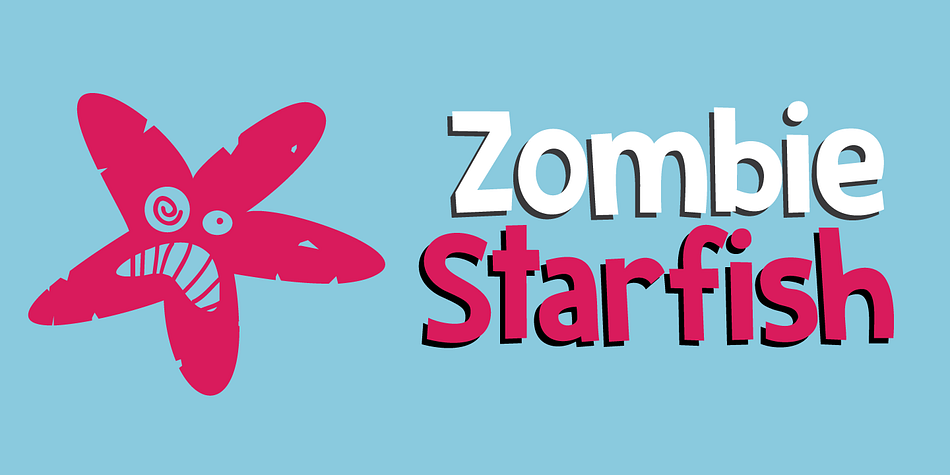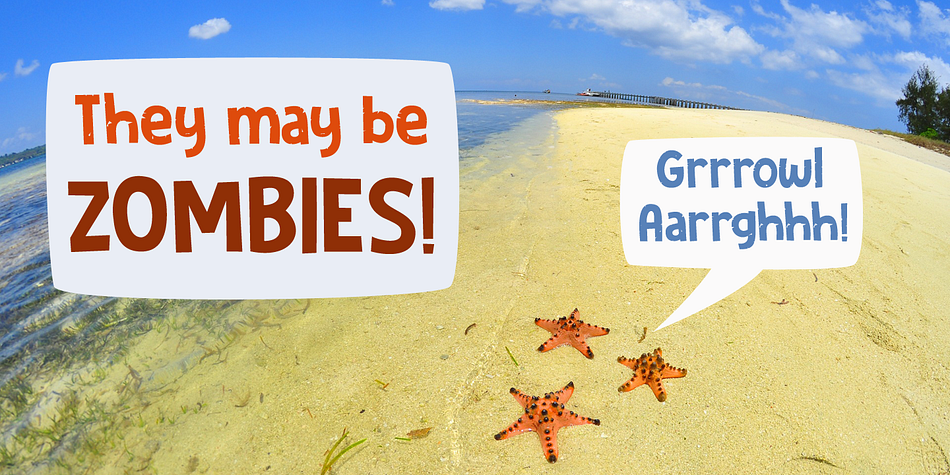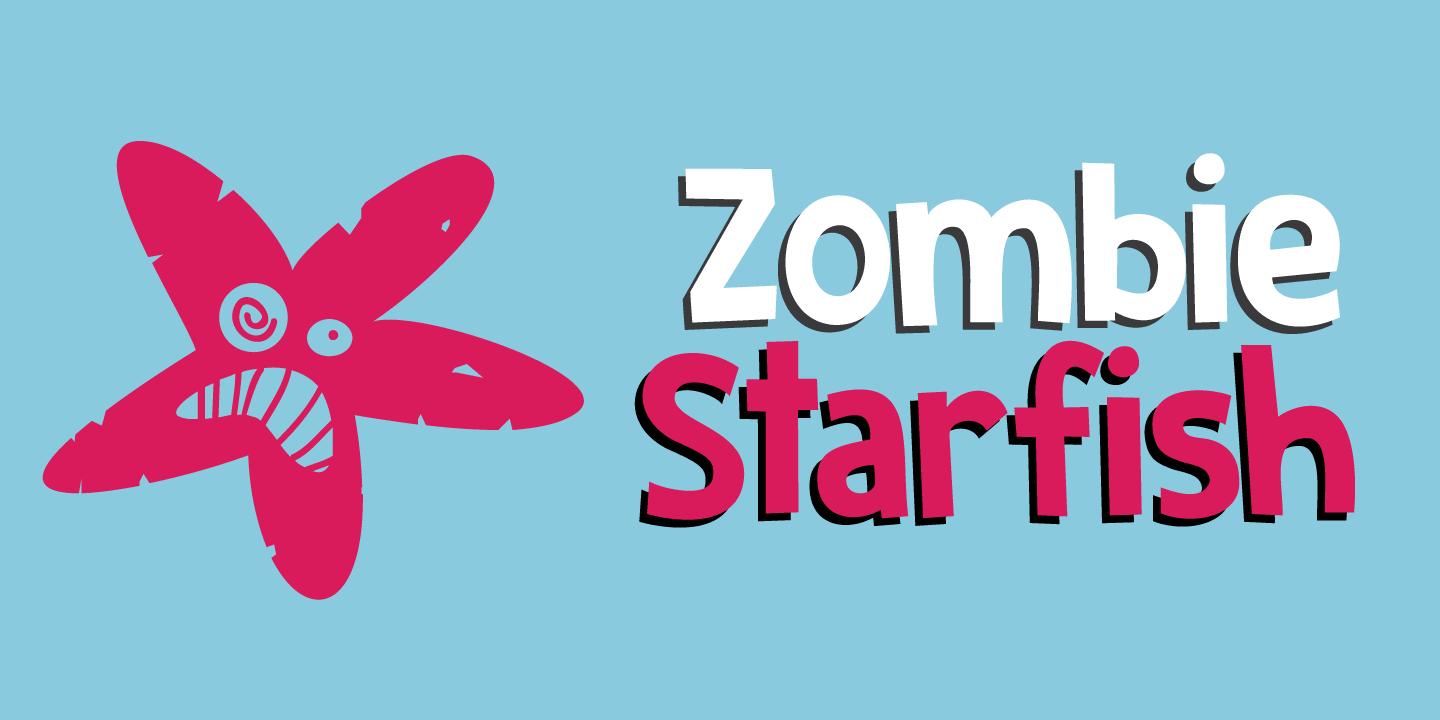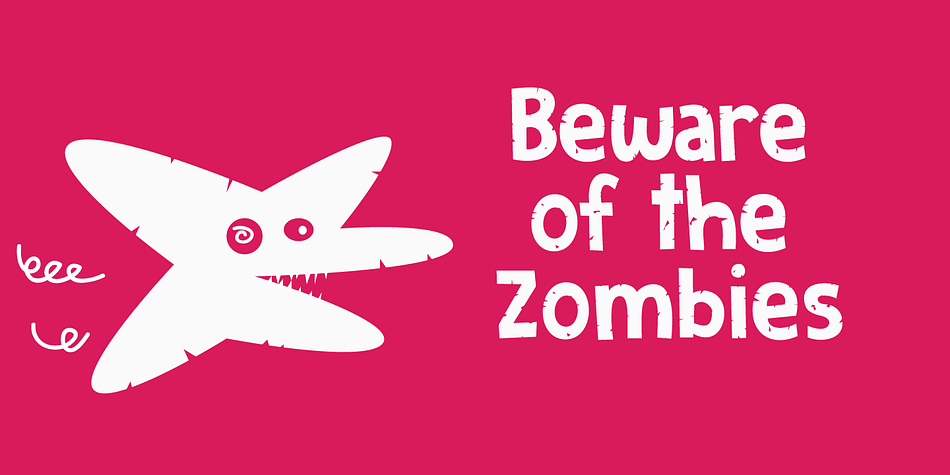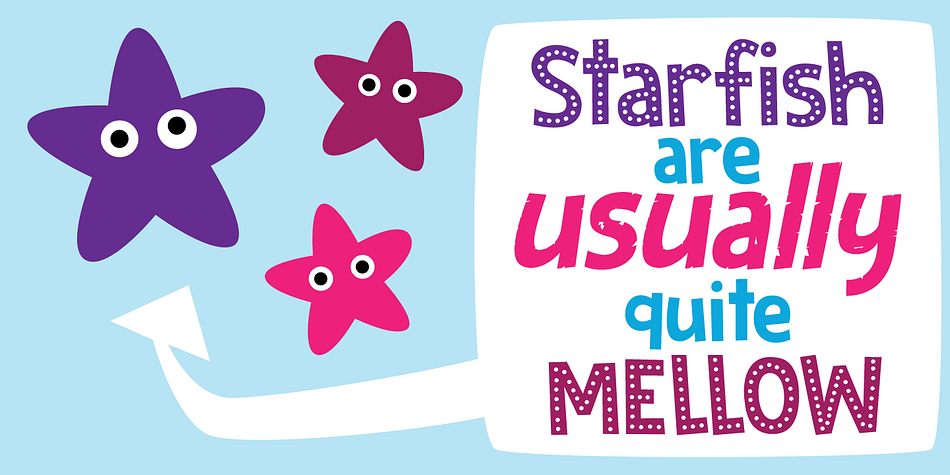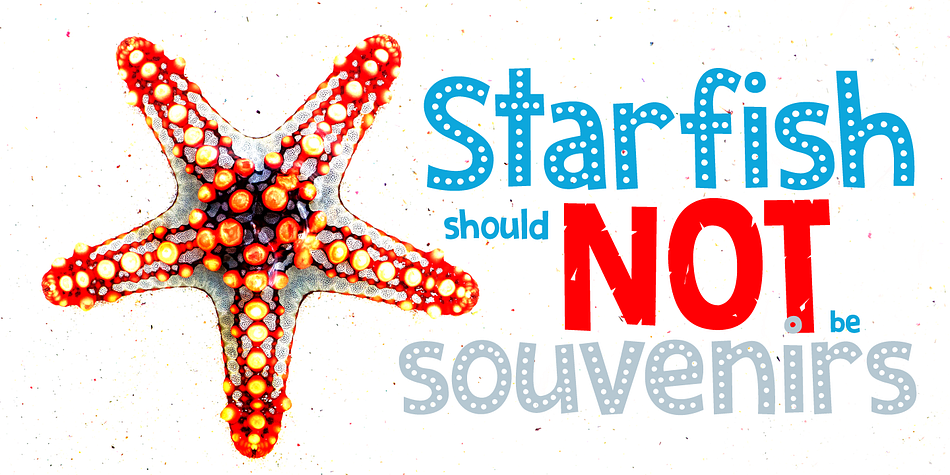
Zombie Starfish is a display sans and kids font family. This typeface has six styles and was published by Hanoded.
Description: Ever seen a zombie starfish? No? Well, neither have I. But this font actually comes close! Zombie Starfish, despite its name, is quite a happy cartoon font. It comes in three styles (regular, eroded and dots), plus accompanying italics. Use it for book covers, seafood restaurants or packaging.